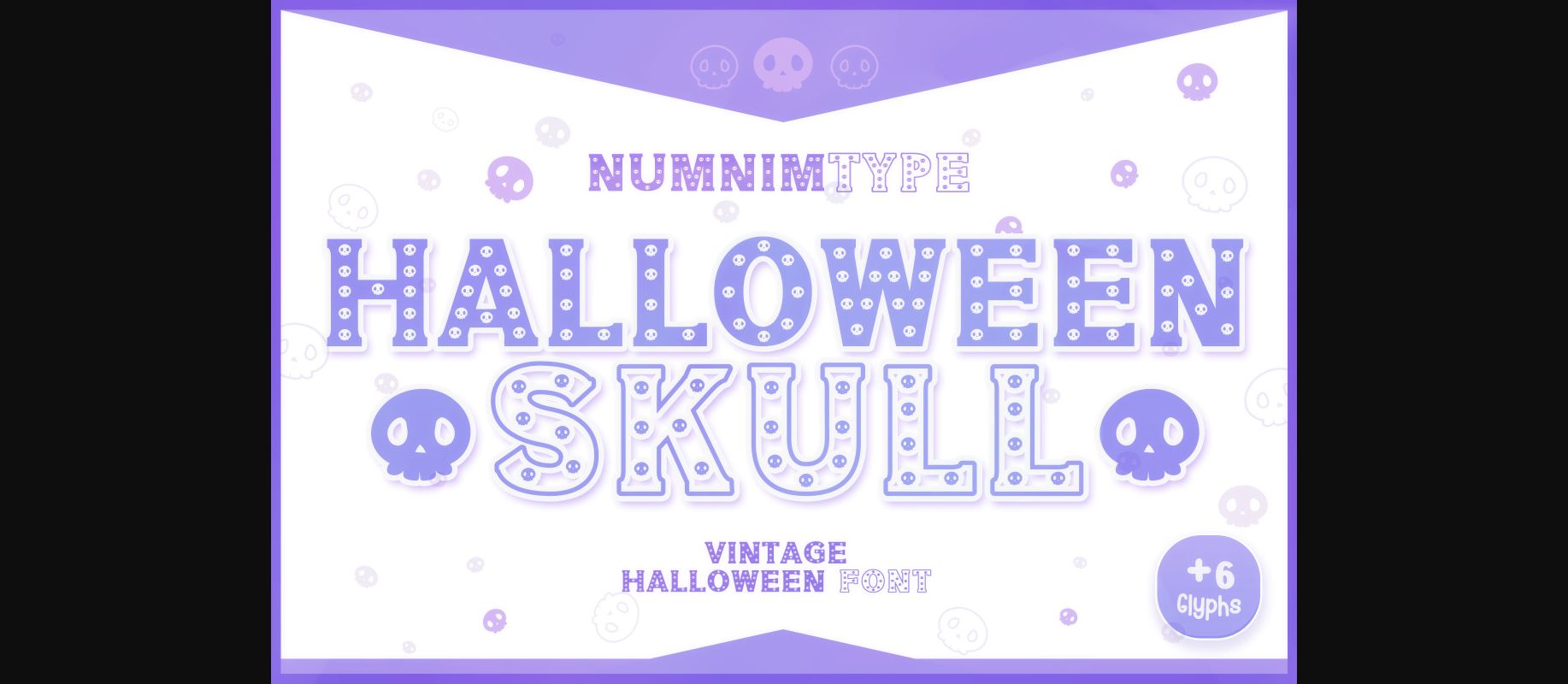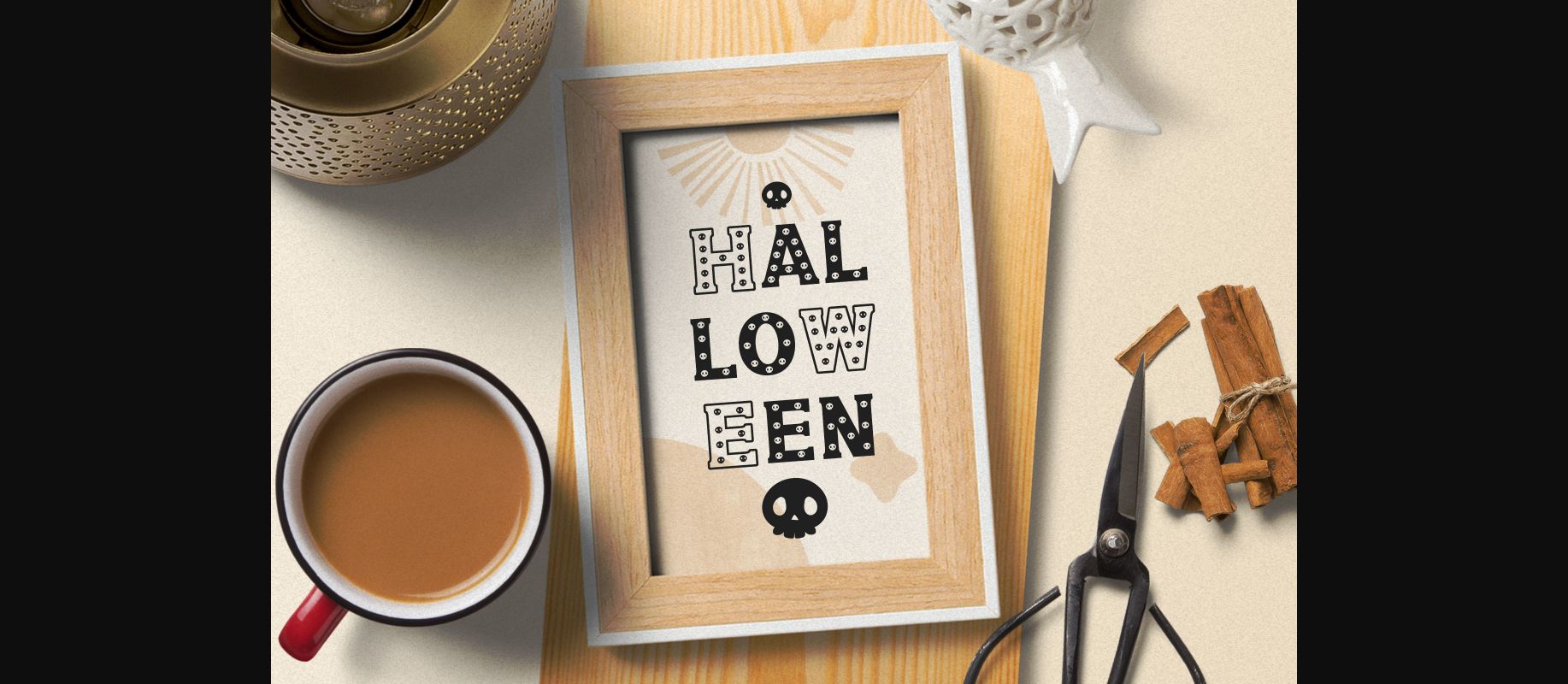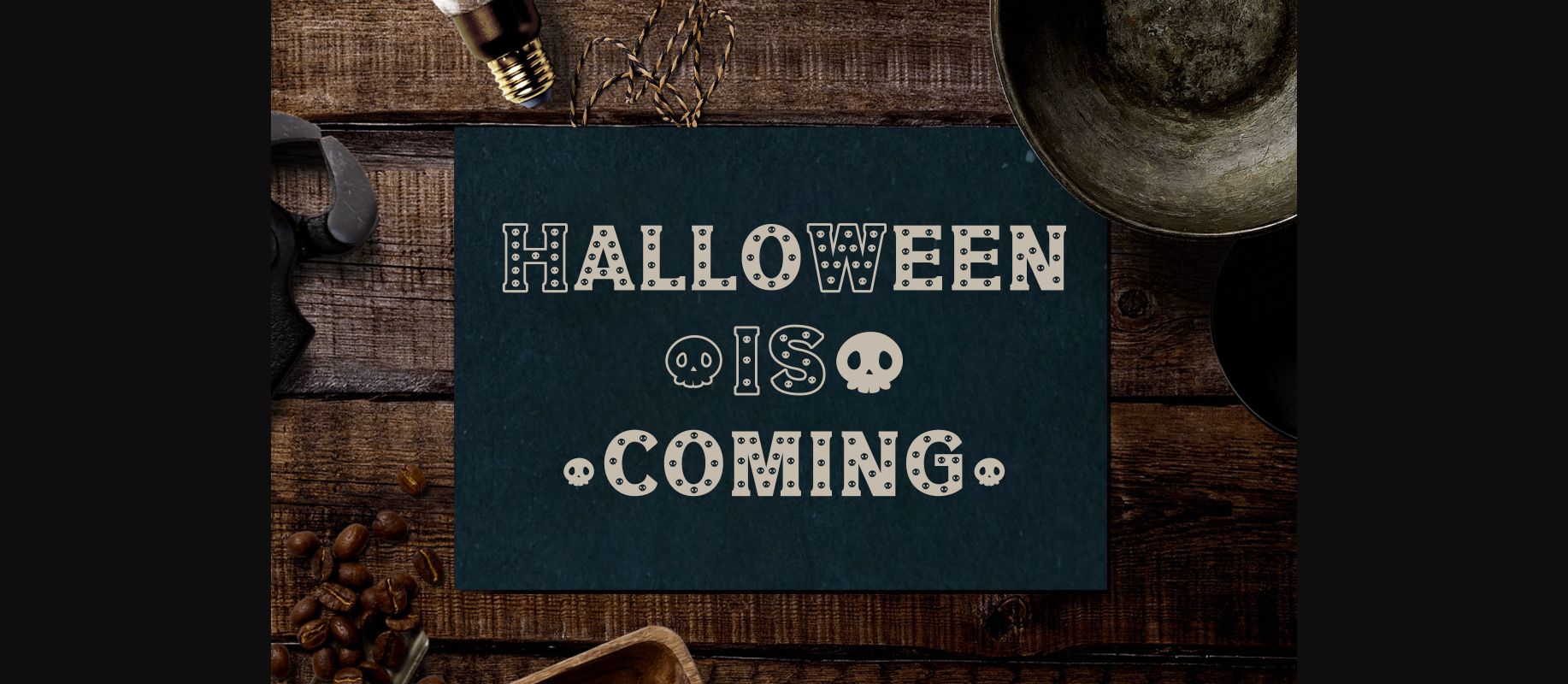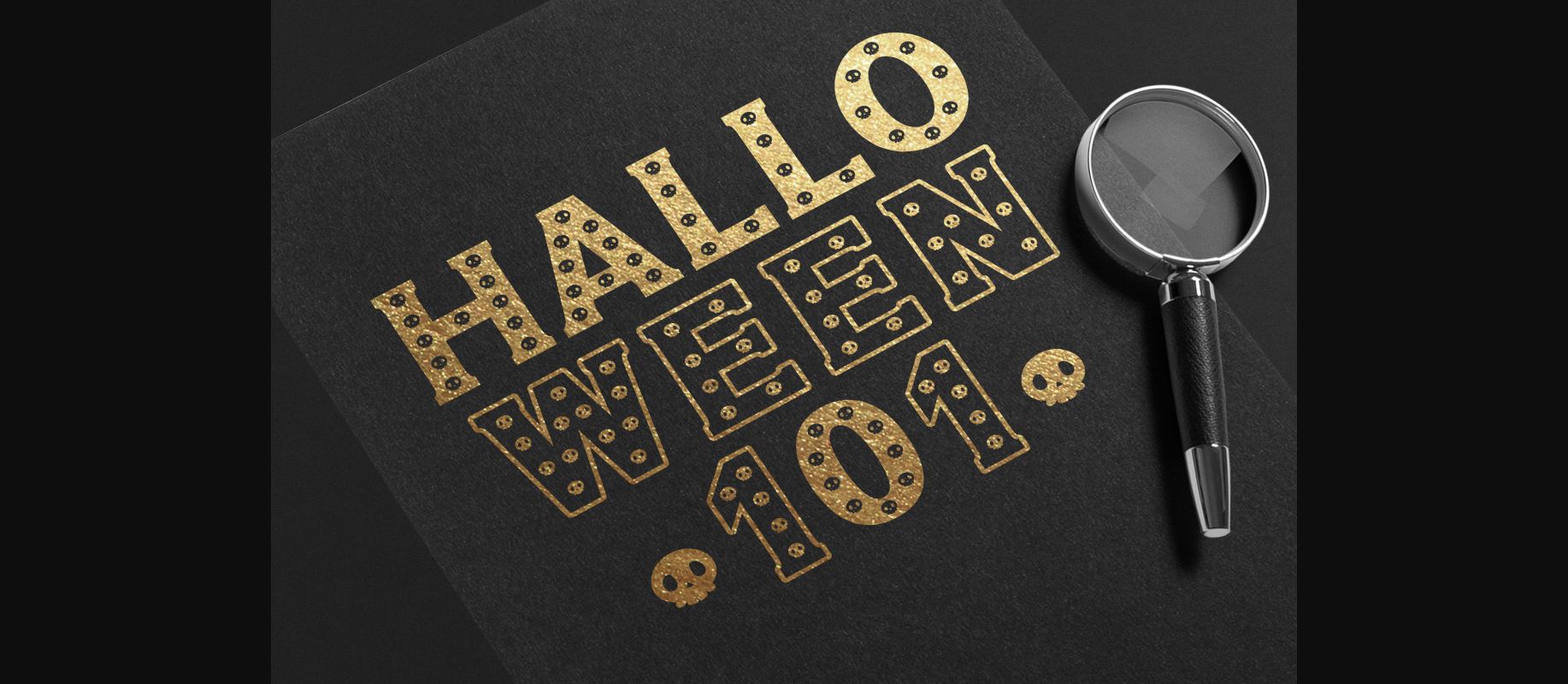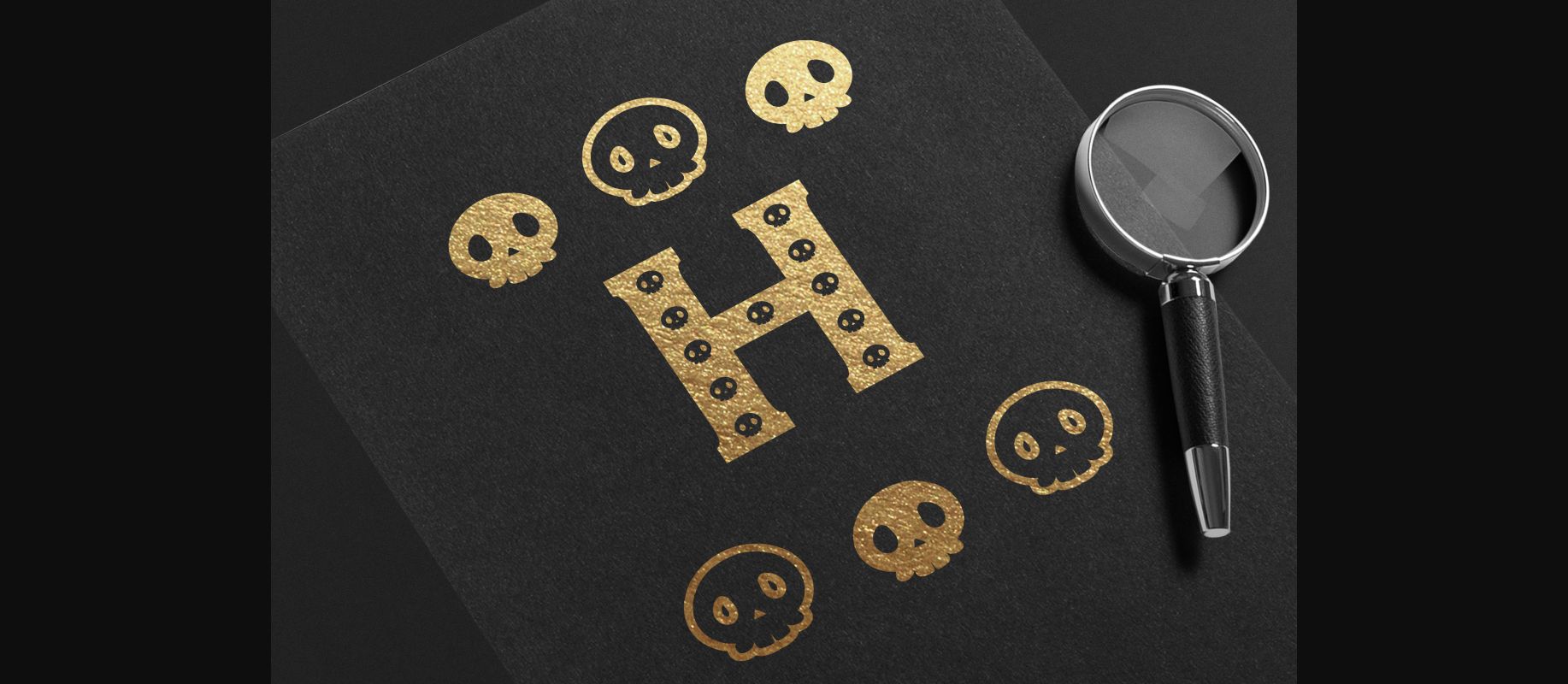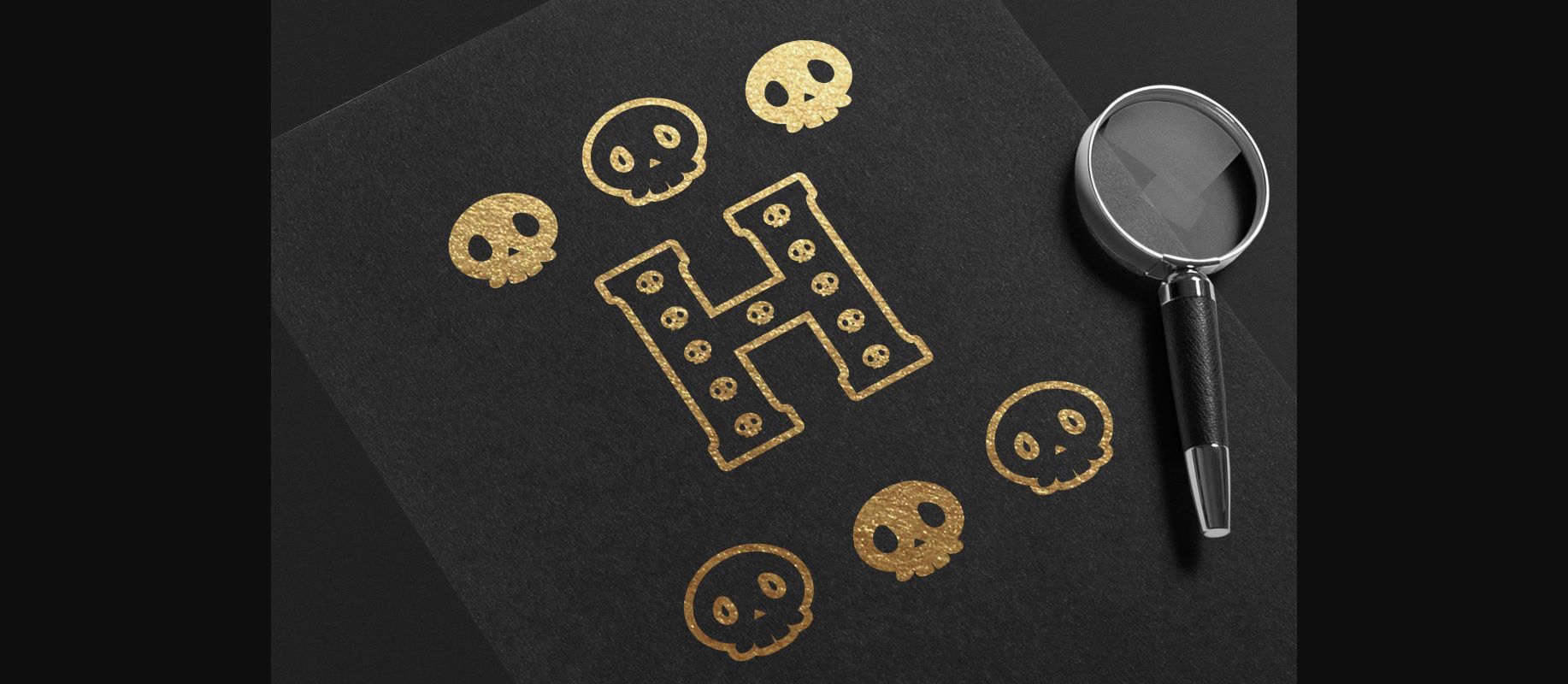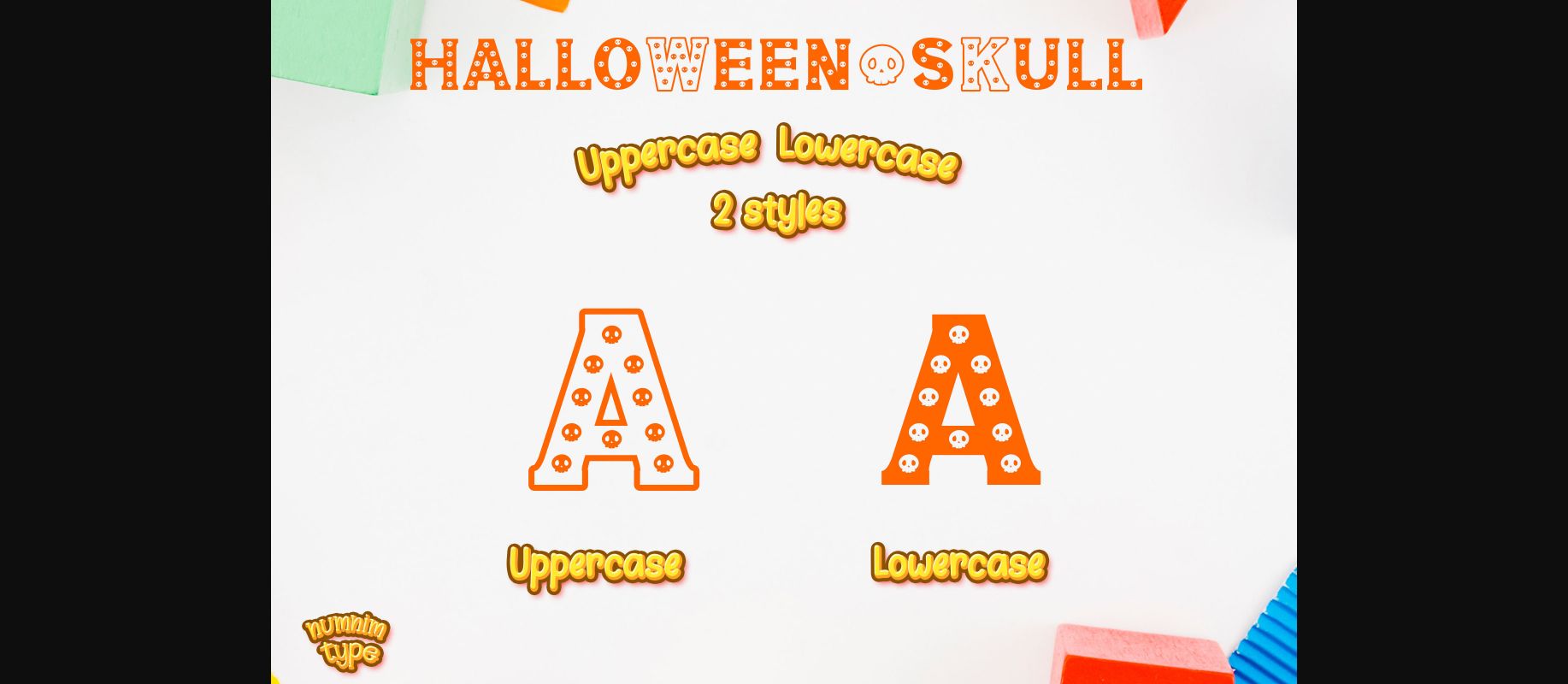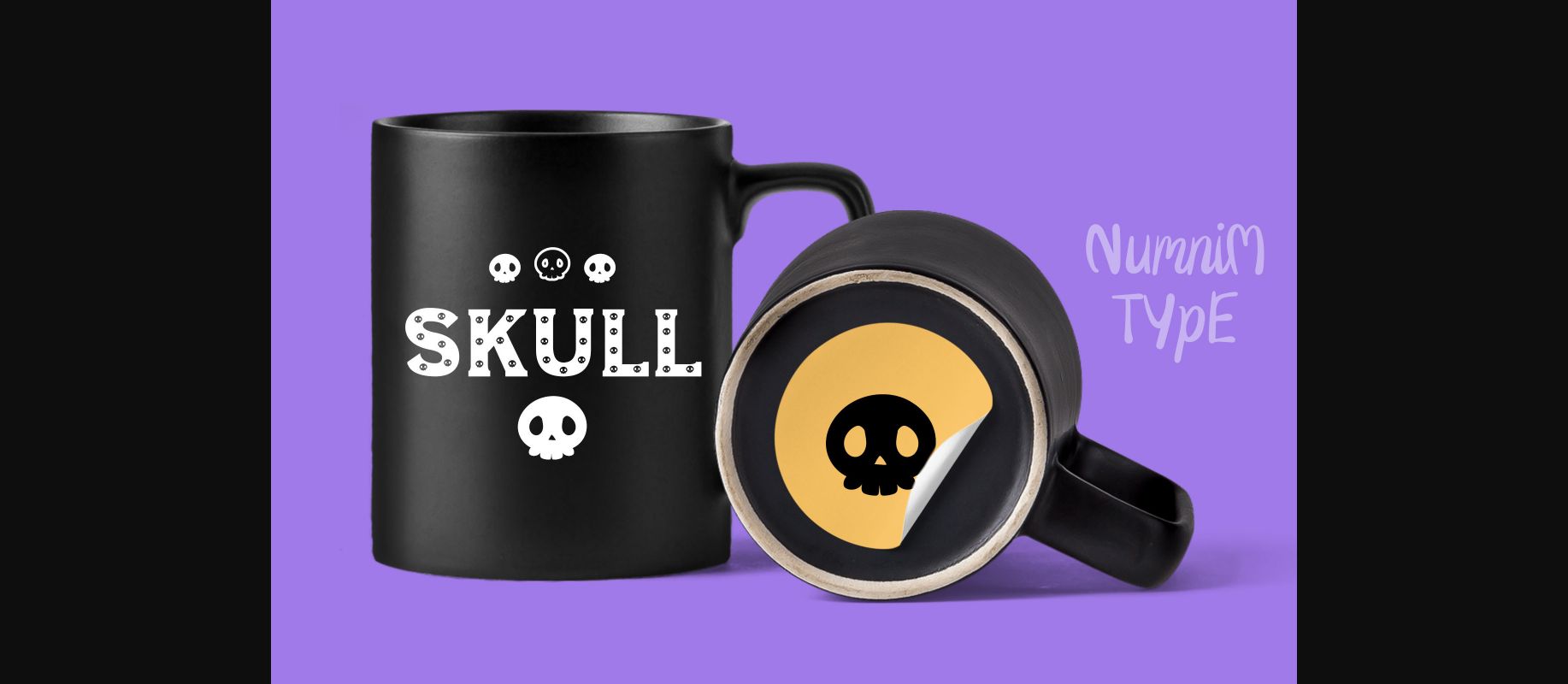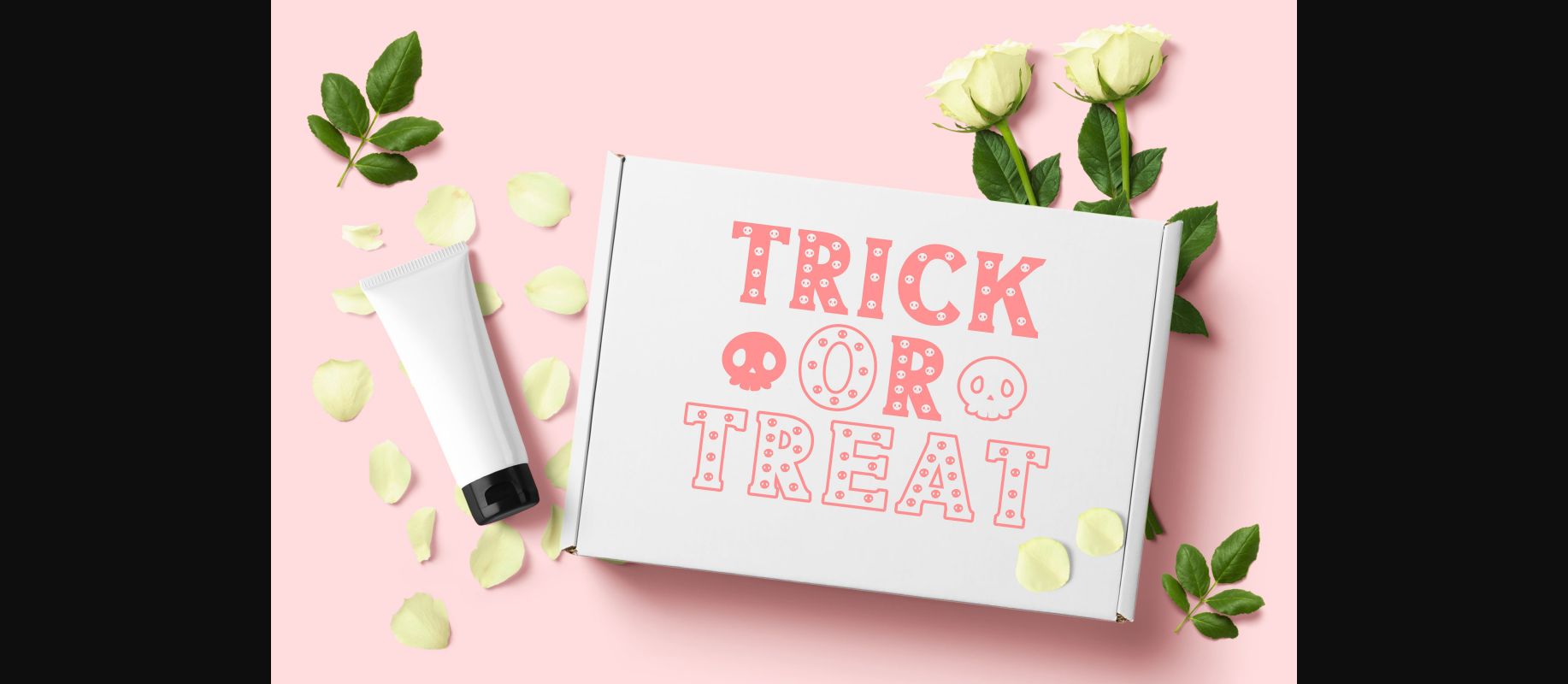
Halloween Skull is a cool and uniquely designed decorative font. Add this font to each of your October designs or Halloween parties and you will love the results.